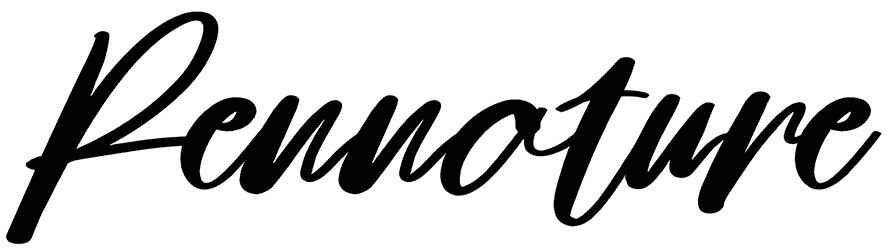
Pennature Font
With this stylish handwritten font, you can beautify your creative modern design and leave a nice first impression on your viewers. The letters of the Pennature font look natural and appealing, and you can use them for an artist’s business card. Let’s put this cursive font on your new layout and convey an attractive vibe.